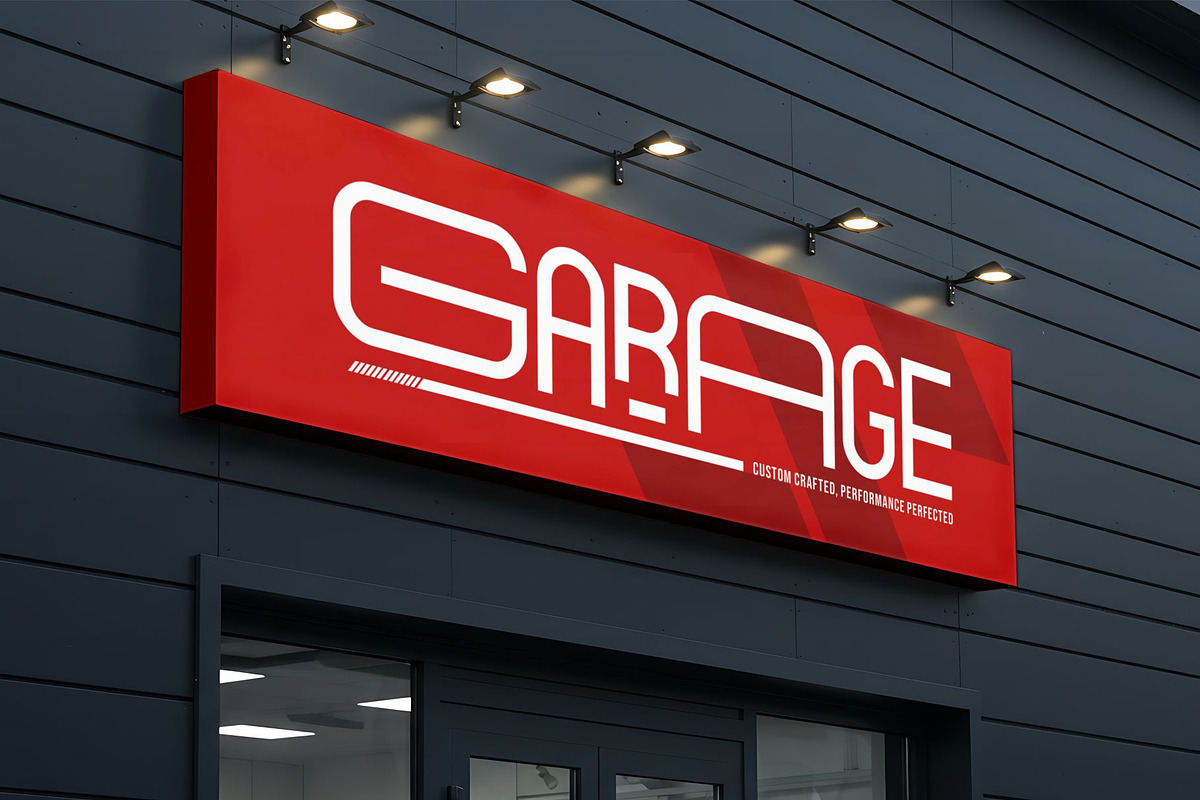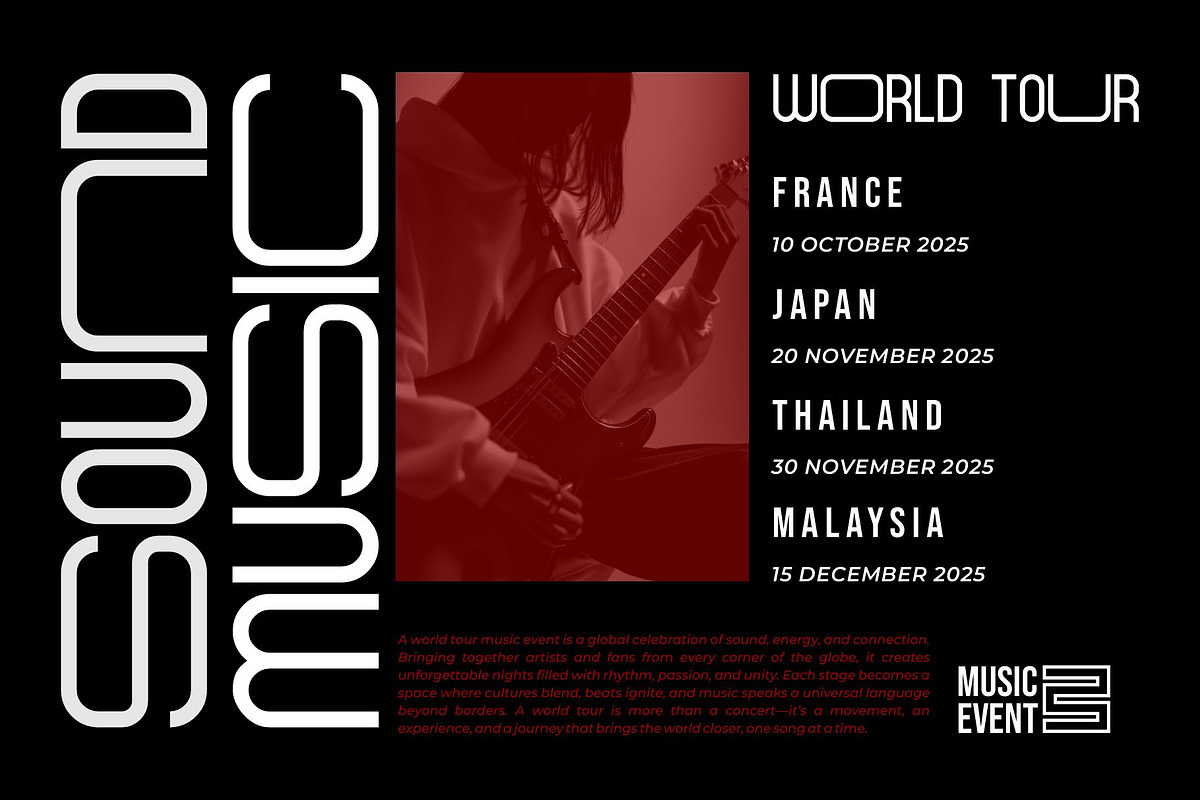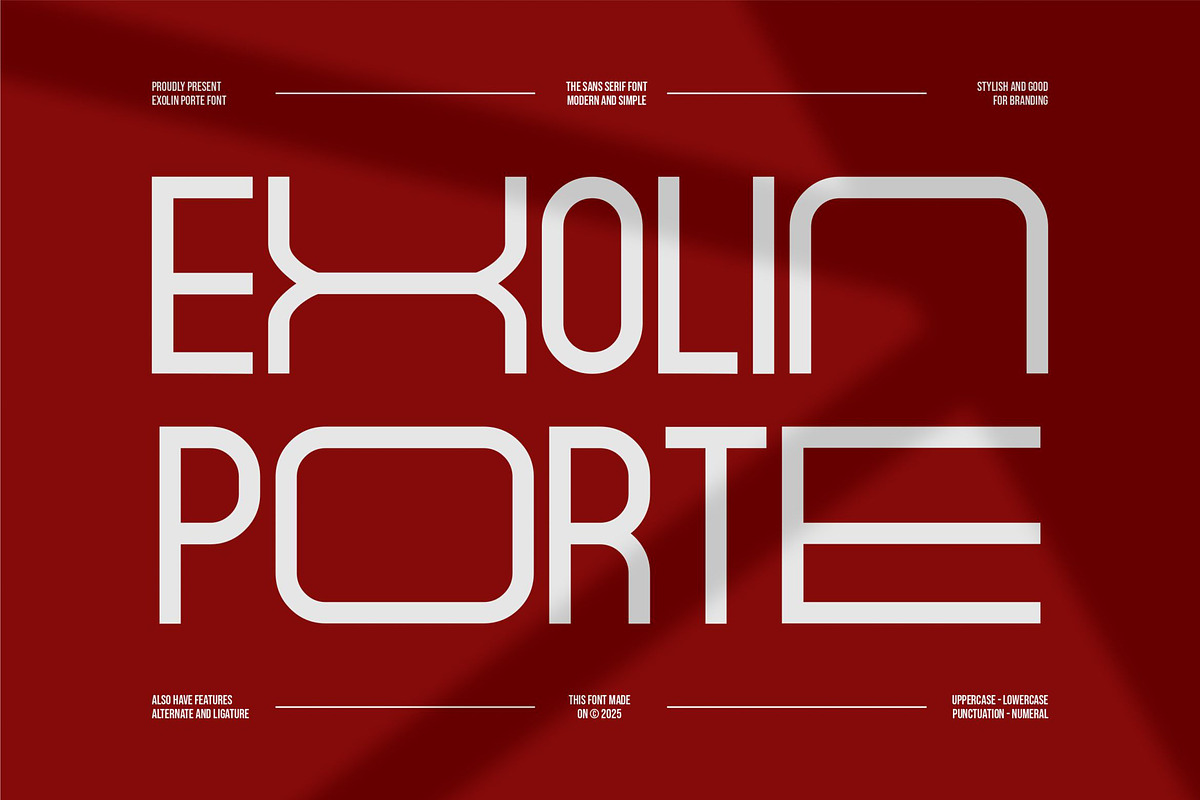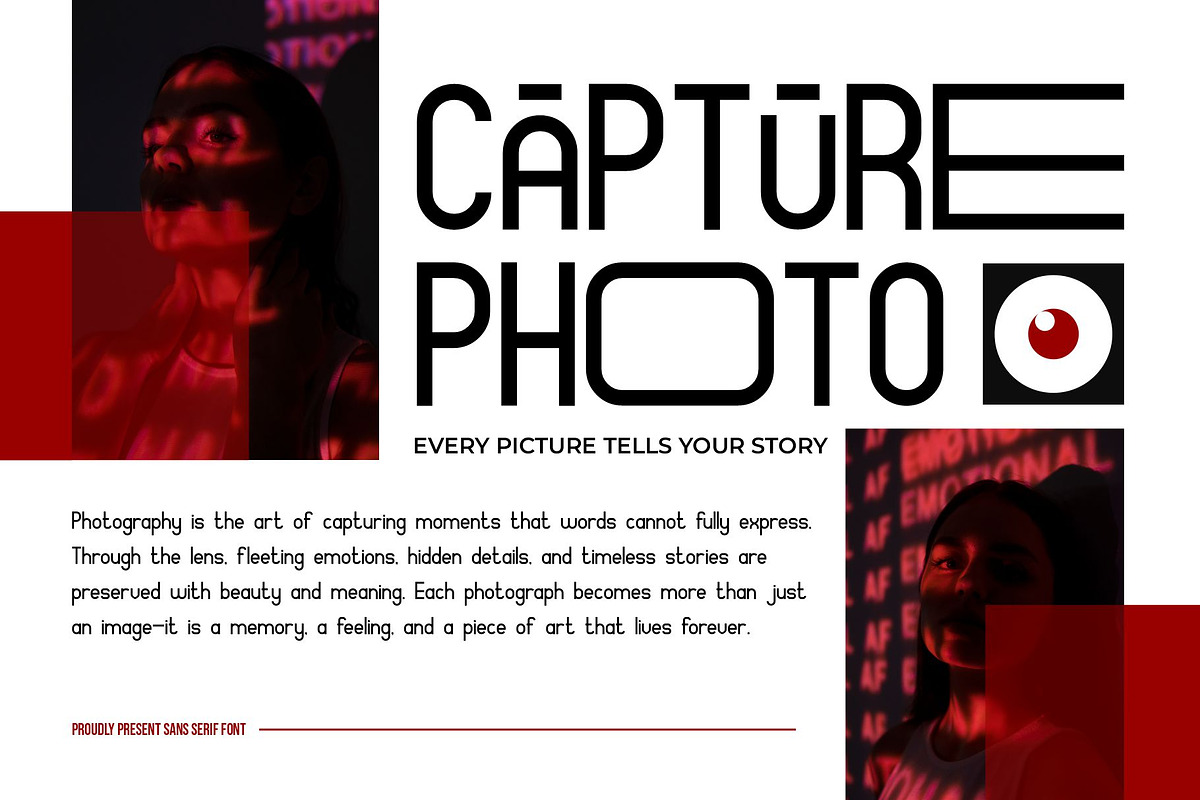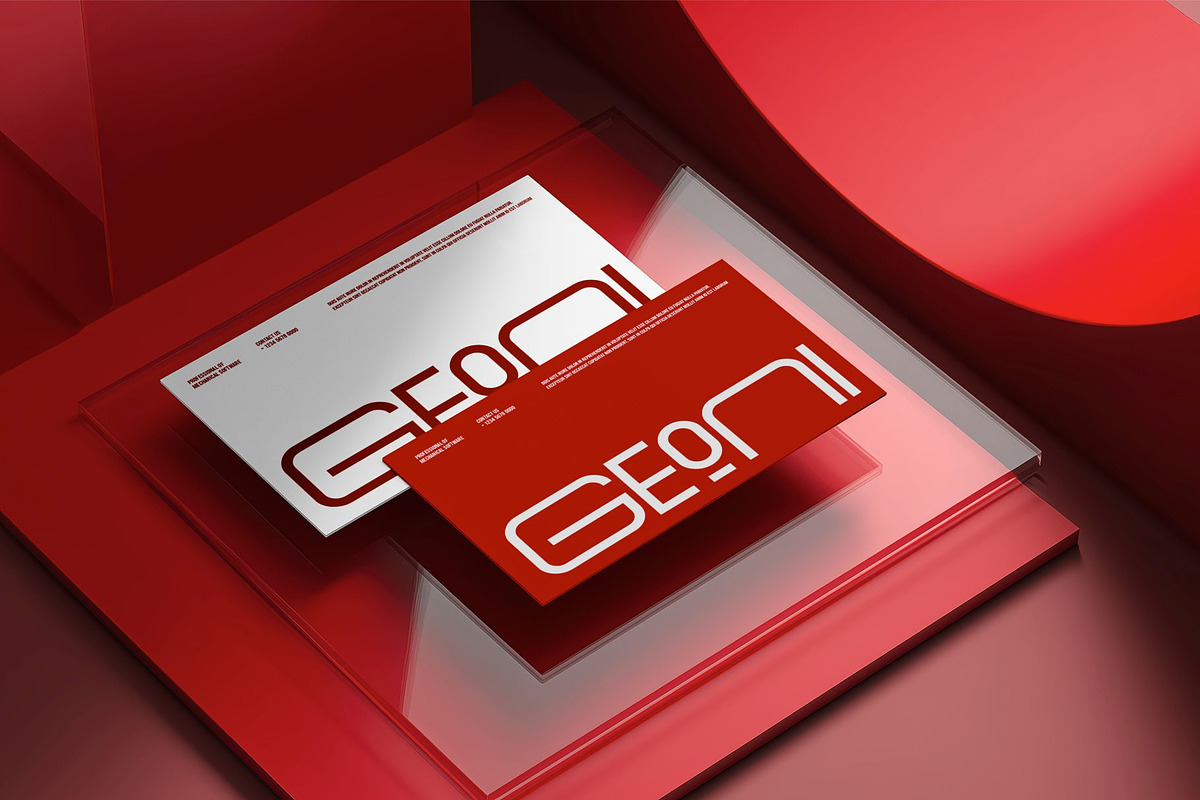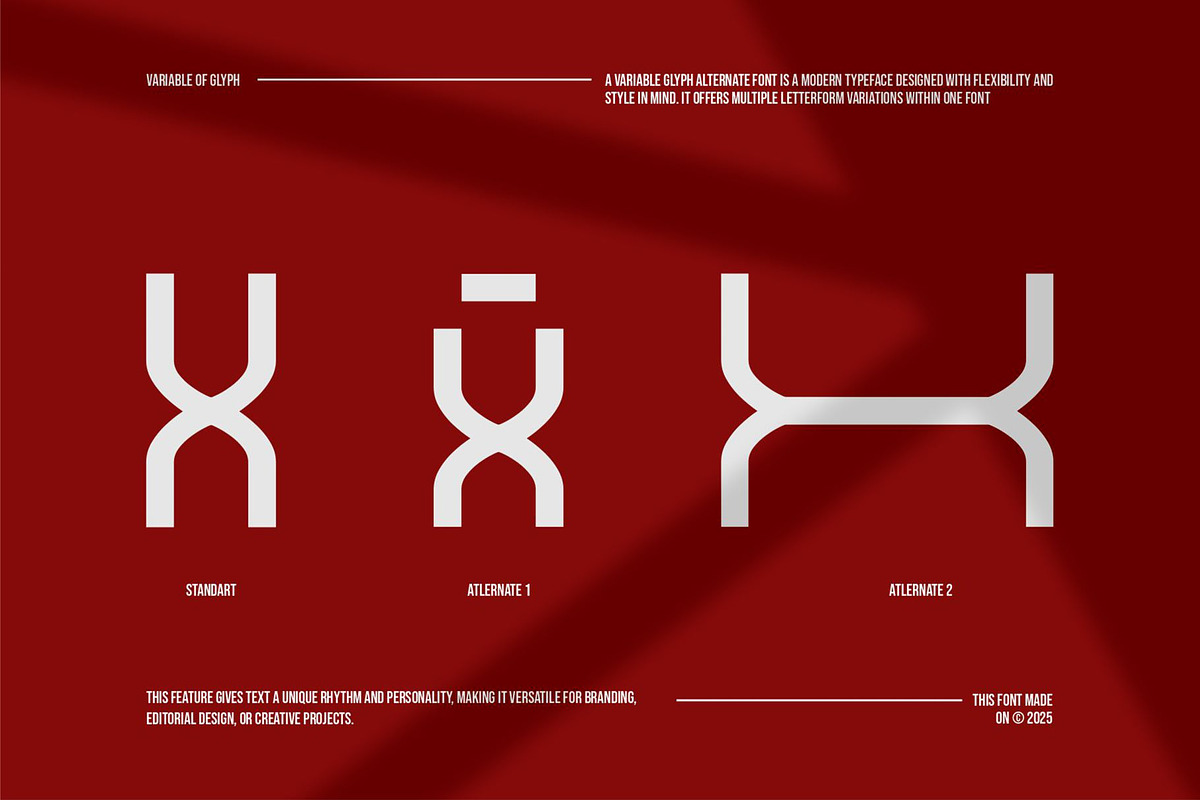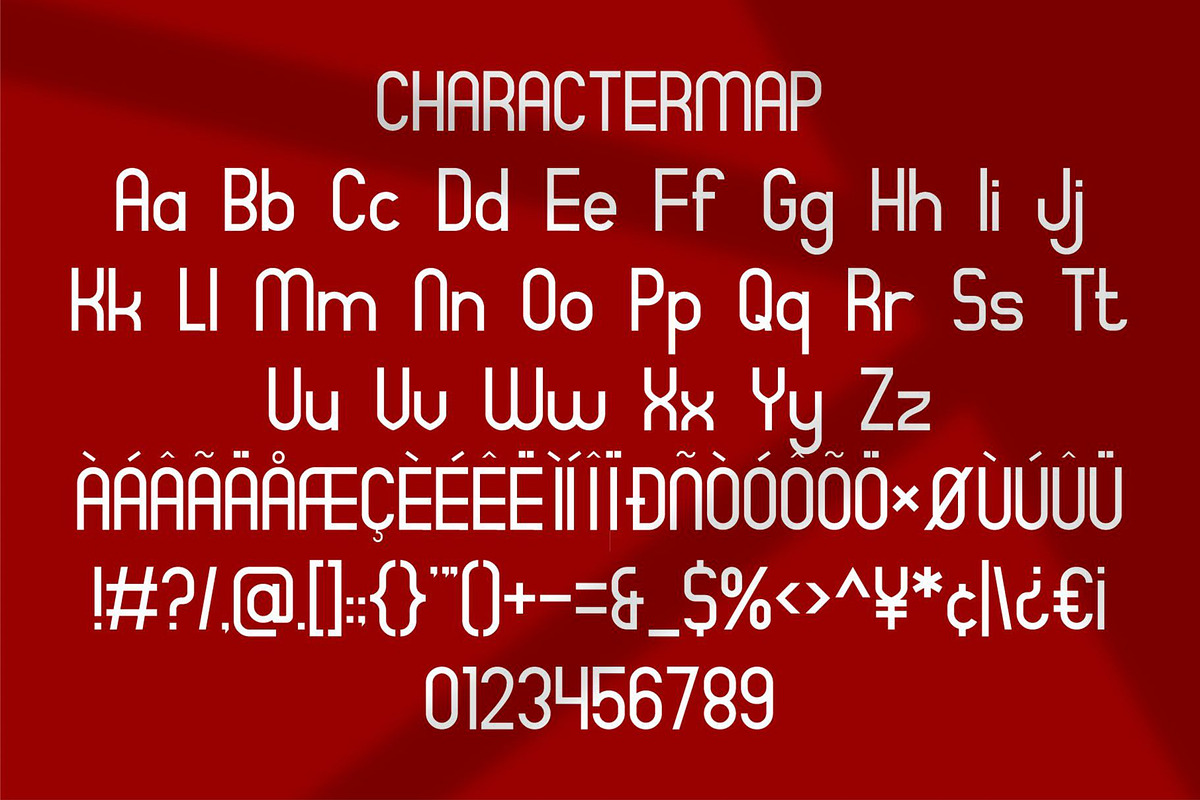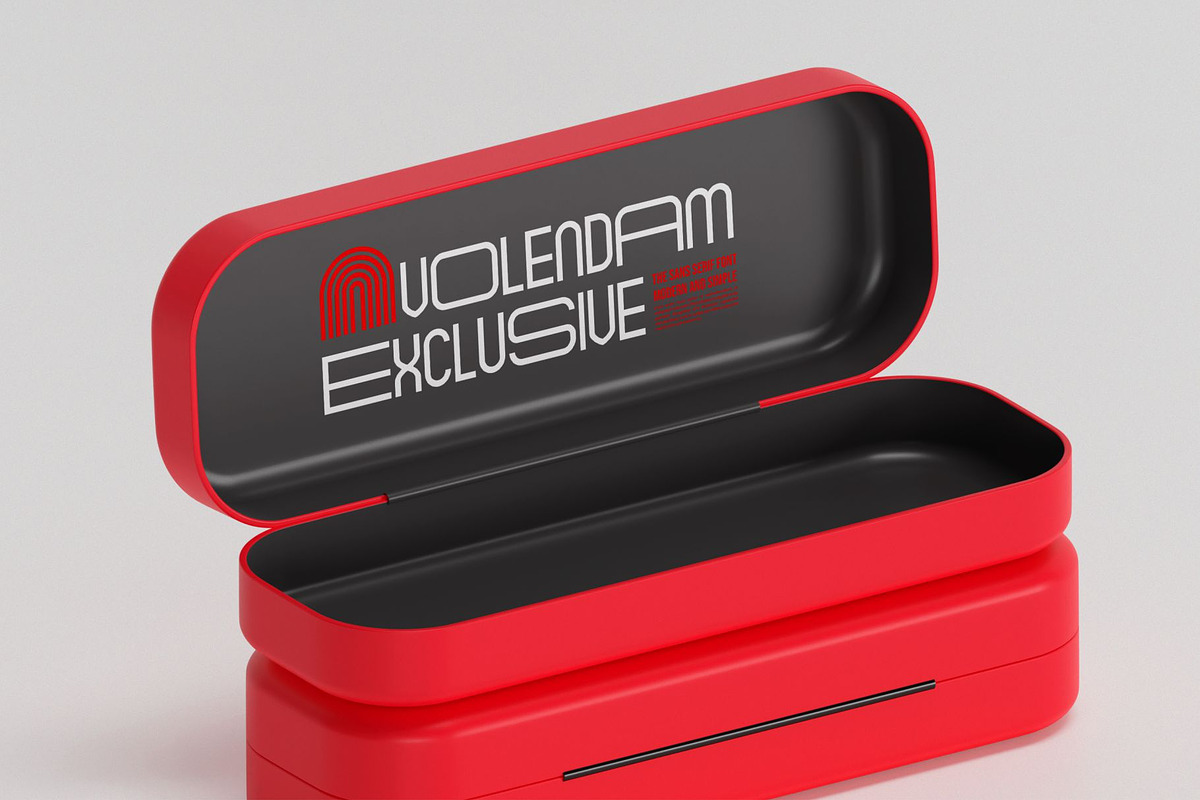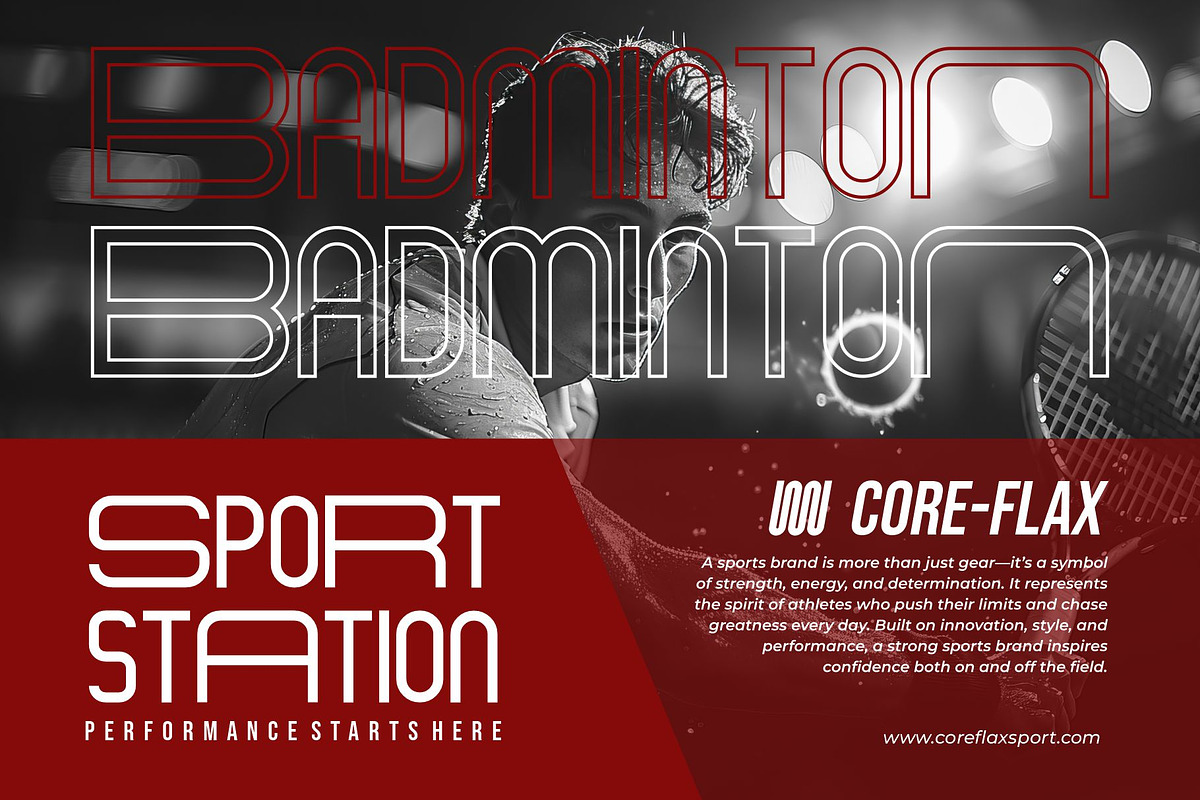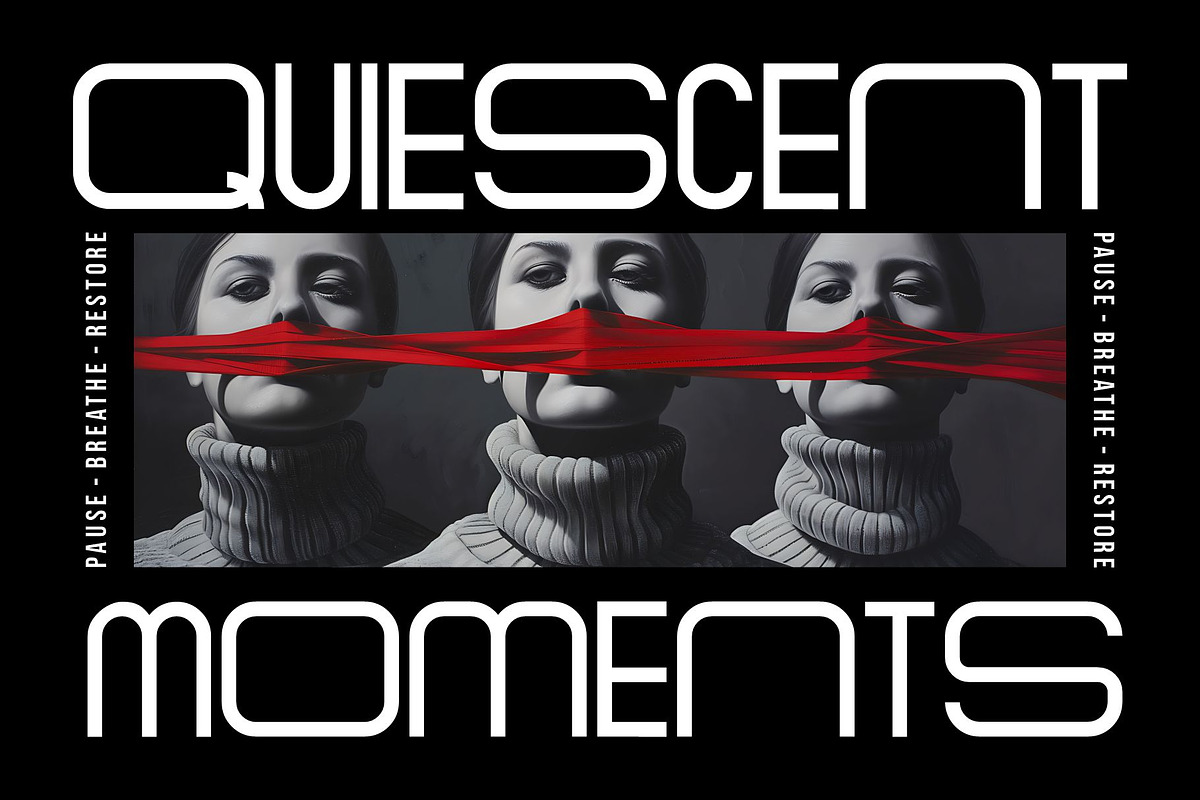
Exolin Porte || Modern Sans Serif
Exolin Porte Sans Serif is a modern and futuristic font type for all branding and logo designs. This modern and futuristic sans serif font has a beautiful character. This font is suitable for invitation card designs, cool logos, movie titles, movie names, business cards, book titles, brand names, and various other designs. Exolin Porte saSans Serif is a smooth sans serif font that exudes sophistication and the moment. Its stylish ligatures make this font a perfect partner for any project. FEATURE : - TTF/OTF - WOFF/WOFF2 - Ligature - Uppercase and lowercase - Numbering and Punctuation - Works on PC or Mac - Simple Installation - Supports Adobe Illustrator, Adobe Photoshop, Adobe InDesign, also works in Microsoft Word Hope you like it. Thank you.